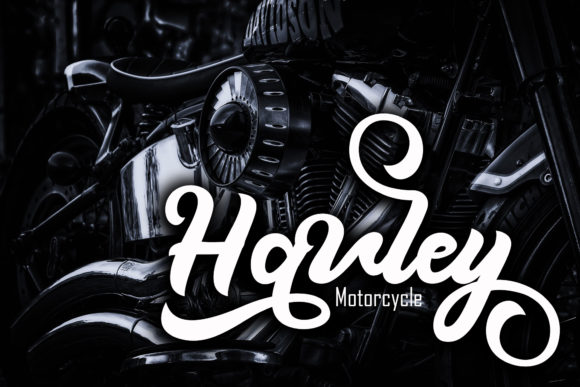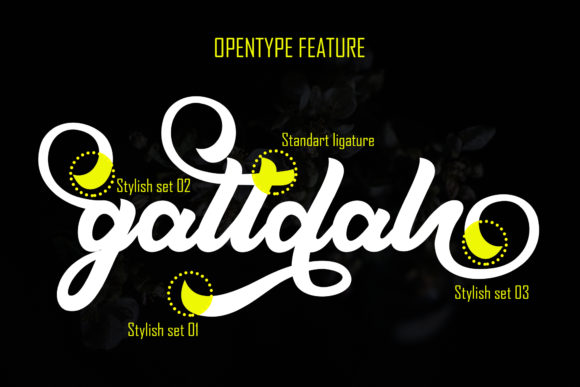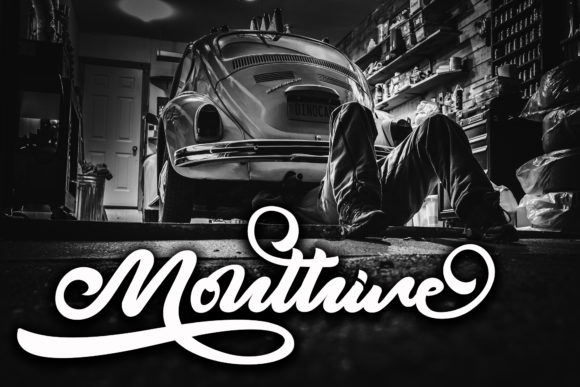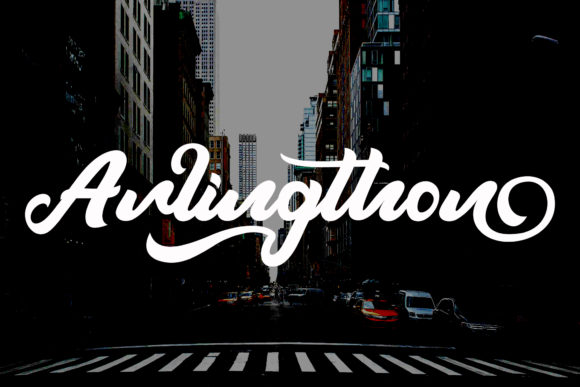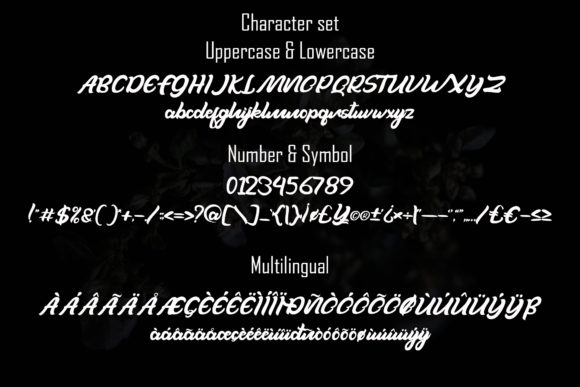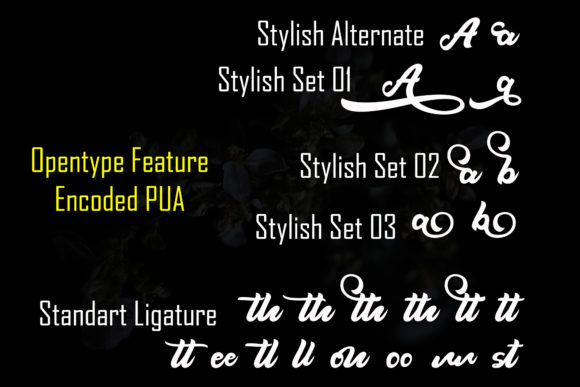
Introduction to Moonthy Font
As designers, we’ve all had those moments when we stumble upon the perfect font to elevate our creative project. For me, it was when I discovered the Moonthy Font – a beautiful and elegant script font that added a touch of sophistication to my latest design. The moment I typed out the first line with Moonthy Font, I knew I had found a new favorite design resource.
But what makes Moonthy Font truly special? With over 150 alternates that are PUA encoded, this gorgeous script font offers endless possibilities for customization. Whether you’re working on a high-quality graphic design or a free download for a creative project, Moonthy Font is sure to impress. Plus, with its transparent background, it’s the perfect choice for designers who want to create stunning visual effects without the hassle of complicated backgrounds.
Key Features of Moonthy Font
- High-quality design resource with a unique and creative style, perfect for a variety of projects.
- Available in a transparent background option, allowing for seamless integration into any design.
- Features a high-resolution design, suitable for print and digital use, with a resolution of 300 DPI.
- Perfect for use in creative projects, such as branding, logos, and typography-based designs.
Honest Review: Moonthy Font
As a designer, I’m always on the lookout for unique and high-quality design resources to enhance my creative projects. Recently, I had the chance to try out the Moonthy Font, and I must say it’s been a game-changer for me.
Here’s what I love about the Moonthy Font: ✨ It has a beautiful, minimalist design that makes it perfect for creating a clean and modern aesthetic. ✨ The font is also highly versatile, making it suitable for a wide range of creative projects, from digital designs to print materials. ✨ And the best part? It’s a free download, making it an excellent addition to any designer’s toolkit.
However, there are a few limitations to consider: ⚠️ The font doesn’t have a transparent background, which can make it a bit tricky to use in certain design scenarios. ⚠️ Additionally, the font is only available in a limited range of weights and styles, which might not be suitable for every project.
Overall, I’m really impressed with the Moonthy Font. It’s a high-quality design resource that’s perfect for designers looking to add a touch of elegance to their creative projects. With its minimalist design and high versatility, it’s definitely worth checking out.
Here are some key features of the Moonthy Font:
- Beautiful, minimalist design
- Highly versatile and suitable for a wide range of creative projects
- Available in a limited range of weights and styles
- No transparent background
Tips for Getting the Most Out of Moonthy Font
Use the Moonthy Font in conjunction with a transparent background to create a seamless design. Experiment with different font sizes and styles to add depth and visual interest to your project.
The Moonthy Font is ideal for a variety of creative projects, including wedding invitations, business cards, and social media graphics. Its elegant and sophisticated design makes it perfect for any project that requires a touch of luxury and sophistication.